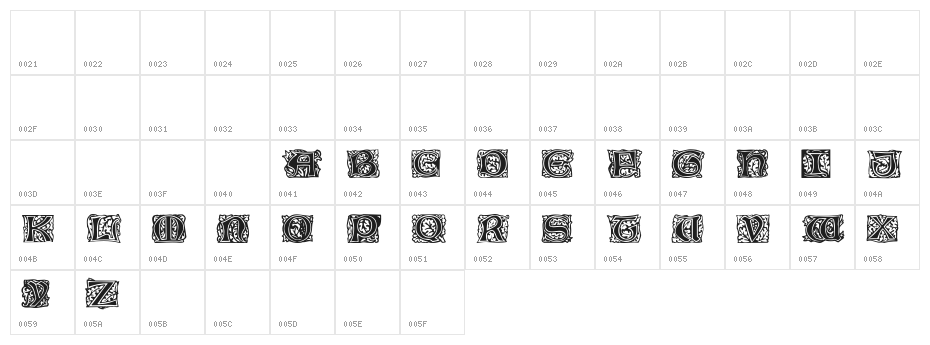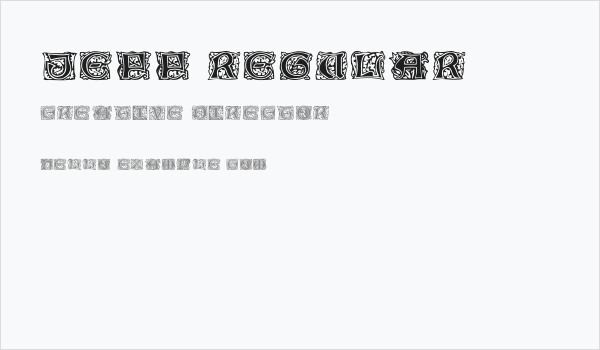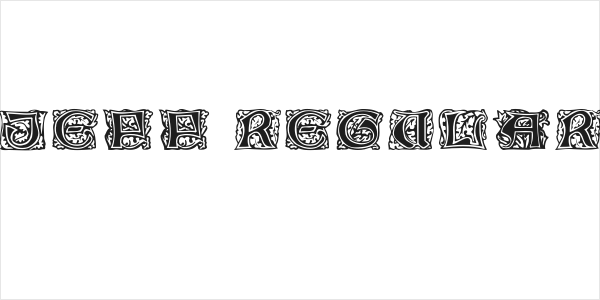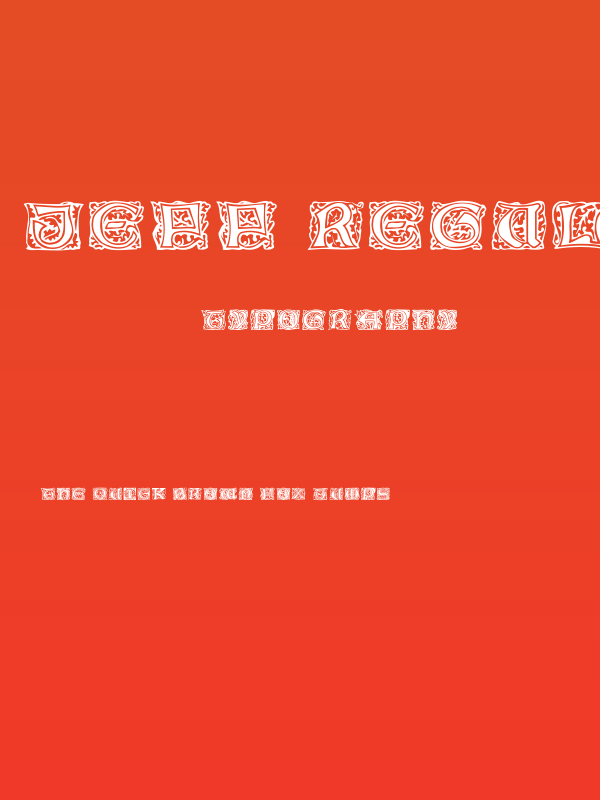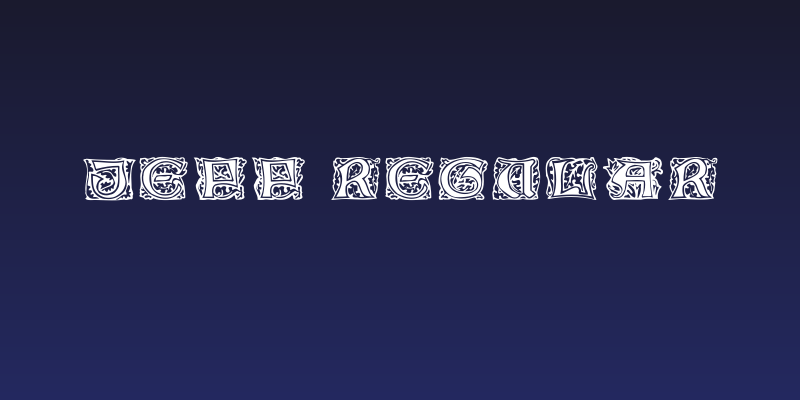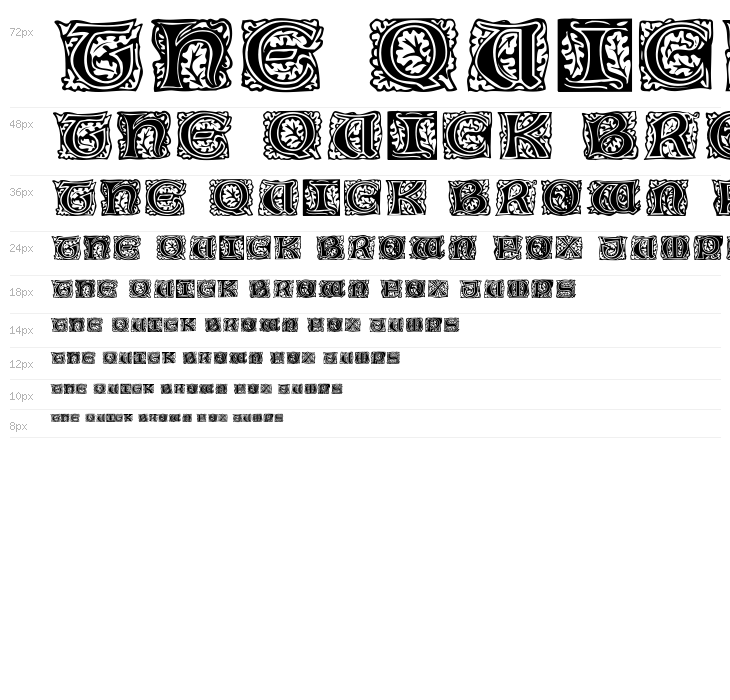
Jeff Regular Font
Jeff Regular Description
This font features an intricate and ornate design, with each character enclosed in a decorative square frame. The letters are highly stylized, incorporating elaborate floral and vine-like patterns that give it a distinct, artistic appearance. The bold and detailed embellishments make it stand out, creating a sense of elegance and sophistication. The font's unique style is reminiscent of vintage or classical art, making it suitable for projects that require a touch of grandeur and visual interest.
| Use Case | Logos, Headlines, Decorative purposes |
| Proposed Projects | Ideal for use in wedding invitations, luxury branding, vintage posters, and decorative book covers. |